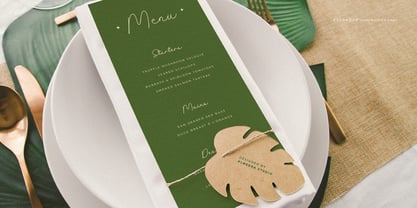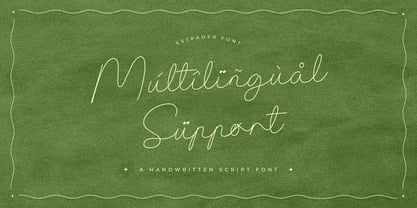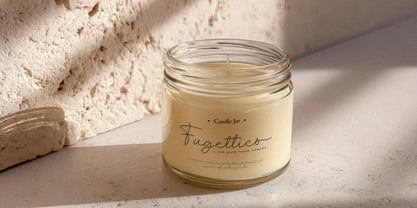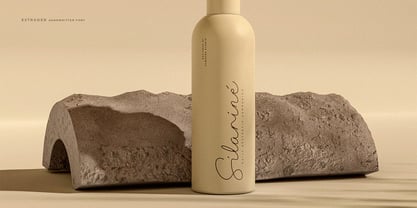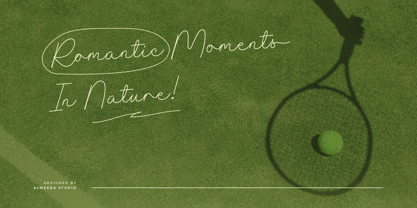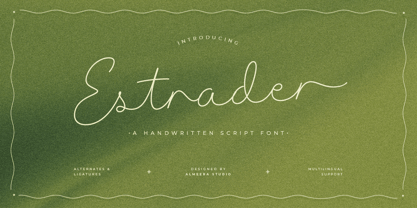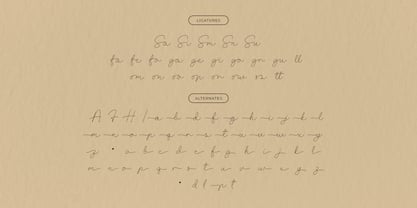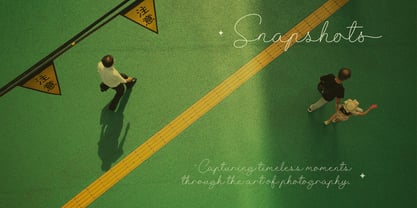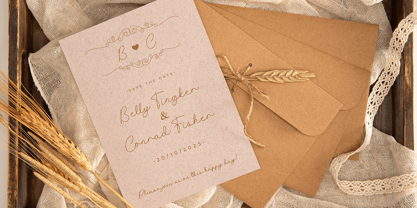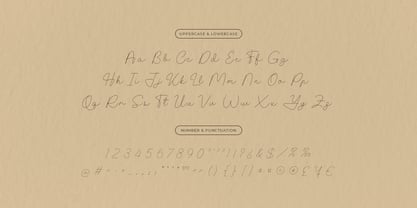
Estrader
by Almeera Studio
The Estrader Font Family was designed by Rinto Dwi Nugroho and published by Almeera Studio. Estrader contains 1 styles. More about this family
Estrader is a handwritten script font that captures the essence of simplicity and elegance. With its fine monoline strokes and naturally flowing rhythm, Estrader delivers a warm, friendly, and personal aesthetic to any design. It’s perfect for branding, invitations, quotes, packaging, stationery, and creative projects that need a touch of authenticity and charm. Featuring alternates & ligatures and complete multilingual support, Estrader offers flexibility and sophistication in every letterform — designed to bring a soft yet confident personality to your typography. Thank you and I hope you enjoy it!
Designers: Rinto Dwi Nugroho
Foundry: Almeera Studio